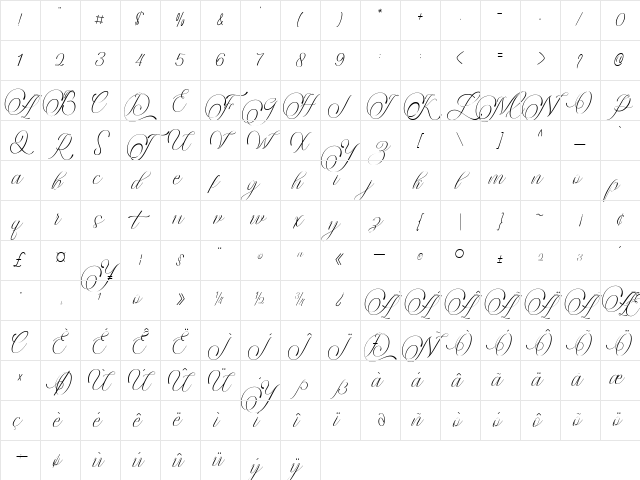
lintingdaon is a composed and adaptable typeface that performs quietly and consistently across a wide range of design contexts.
Pro Tip: Use lintingdaon in both headline and body roles to test its range before committing to a single application.